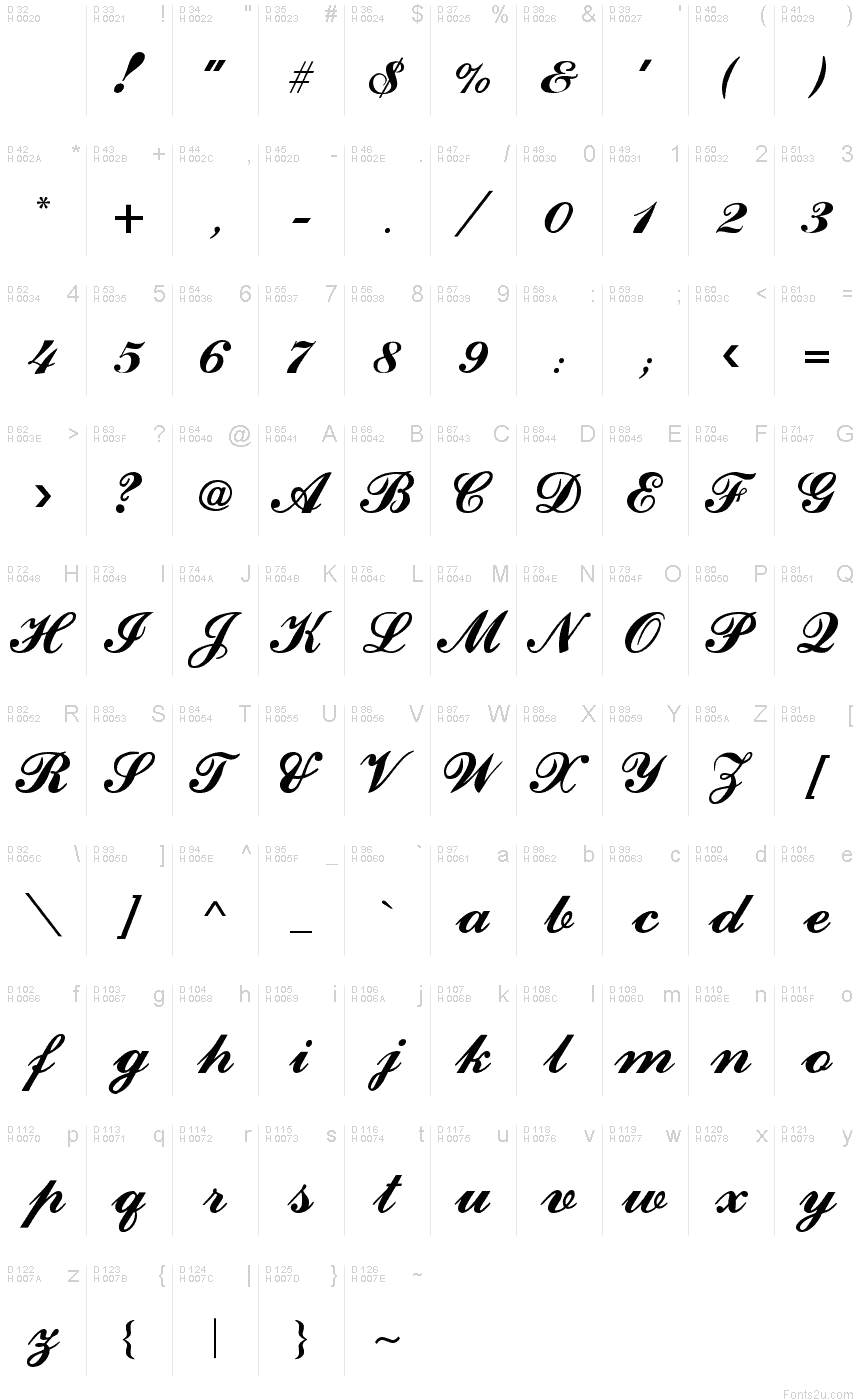
CounselorScript Medium
Counselor Script font is a free calligraphy typeface with a smooth, inky flow that feels like it was written with a well-loved fountain pen. Its sweeping curves, gentle slant, and tightly knit connections create an elegant rhythm that still stays remarkably legible at medium sizes. The CounselorScript family gives it a polished cohesion, so headlines and names look consistent across different applications without losing that handwritten warmth.
Using Counselor Script, this free font shines on wedding invitations, save-the-dates, boutique logos, packaging labels, menus, certificates, and upscale social graphics. The strokes have a silky, slightly compressed look that pulls the eye along in one continuous motion, adding drama without fuss. For balance, pair it with a clean sans serif set small for body text, and let CounselorScript Medium take center stage for names, titles, and key phrases.